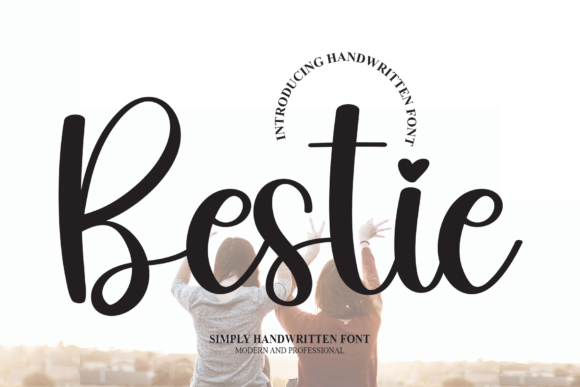
The Ultimate Guide to Bestie Font: Elevate Your Designs with Luxury and Elegance
I’ll never forget the time I was working on a luxury branding project for a high-end jewelry client. I had spent hours perfecting the logo design, but something was missing. The font I had chosen just wasn’t giving off the right vibe – it felt too generic, too bland. That’s when I stumbled upon Bestie Font, and it completely transformed my design. In this article, I’ll share my love for Bestie Font, its unique features, and how to make the most of it in your designs.
An Honest Review of Bestie Font
So, what makes Bestie Font so special? Let’s dive into the good stuff! 😊
- ✨ Unique and elegant feel: Bestie Font has a distinct handwritten quality that adds a touch of sophistication to any design.
- ✅ Highly versatile: Whether you’re working on a logo, packaging, or social media graphics, Bestie Font adapts seamlessly.
- 💫 Luxury appeal: This font screams high-end quality, making it perfect for branding projects that require a premium feel.
Of course, no font is perfect, and Bestie Font has a few minor quirks:
- 🤔 Limited use in body text: While Bestie Font shines in headlines and titles, it may not be the best choice for longer blocks of text.
- ⚠️ Some letter combinations may require manual kerning: As with any font, you may need to adjust the spacing between certain letters for optimal readability.
The Story Behind Bestie Font
Bestie Font was created with the intention of bringing a touch of luxury and elegance to design projects. Its unique feel and stunning impact make it perfect for designers looking to elevate their work. Whether you’re a seasoned designer or a creative hobbyist, Bestie Font is sure to become a favorite in your toolkit.
| What makes Bestie Font unique? | Bestie Font has a distinct handwritten quality with a luxurious feel, making it perfect for high-end designs. |
| Is Bestie Font suitable for body text? | While Bestie Font shines in headlines and titles, it may not be the best choice for longer blocks of text. |